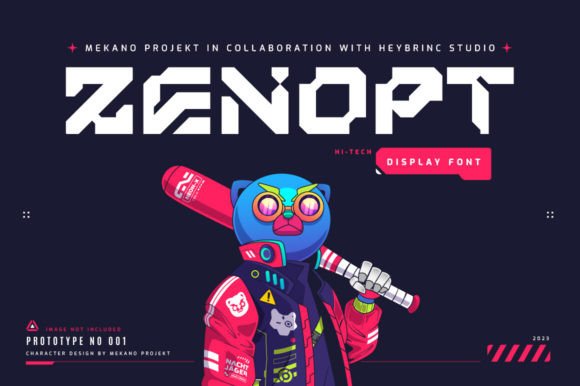
Embrace the future with Zenopt, the font that exudes modernity, innovation, and a touch of captivating mystery! This display font is not just a collection of letters and symbols; it's a portal to a world of cutting-edge design and boundless creativity.
With its sharp angles, sleek lines, and futuristic vibe, Zenopt is the ideal font for those who want to make a bold statement. Its distinct character adds an instant touch of sophistication and style to any project, whether it's a logo design, website creation, or poster design.
Immerse yourself in the world of science fiction and high-tech aesthetics with Zenopt. Its dynamic and engaging design captures the essence of the future, making it the perfect choice for projects that seek to evoke a sense of wonder and intrigue. Unleash your creativity and let Zenopt transport your audience to a realm of limitless possibilities.
But Zenopt is not just about aesthetics; it's also incredibly versatile, adapting effortlessly to a wide range of applications. Whether you're designing a logo for a tech company, creating a website for a futuristic product, or crafting a poster for an upcoming sci-fi convention, Zenopt seamlessly blends with your vision, adding depth and personality to every design element.
Experience the power of Zenopt today and embark on a journey of creativity and innovation. This remarkable font will elevate your designs to new heights, leaving a lasting impression on your audience. Join the ranks of forward-thinking designers and embrace the limitless potential of Zenopt, the font of the future.